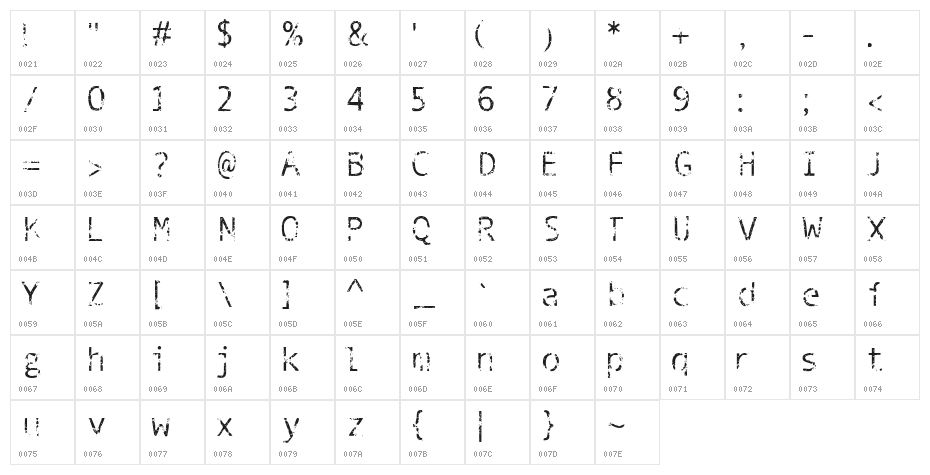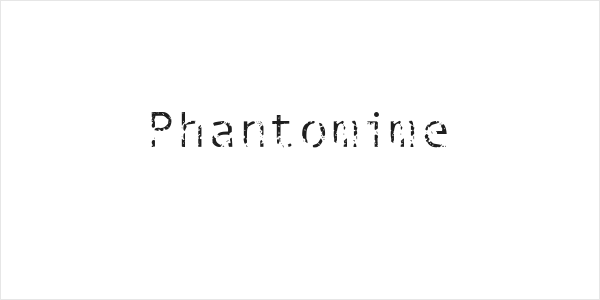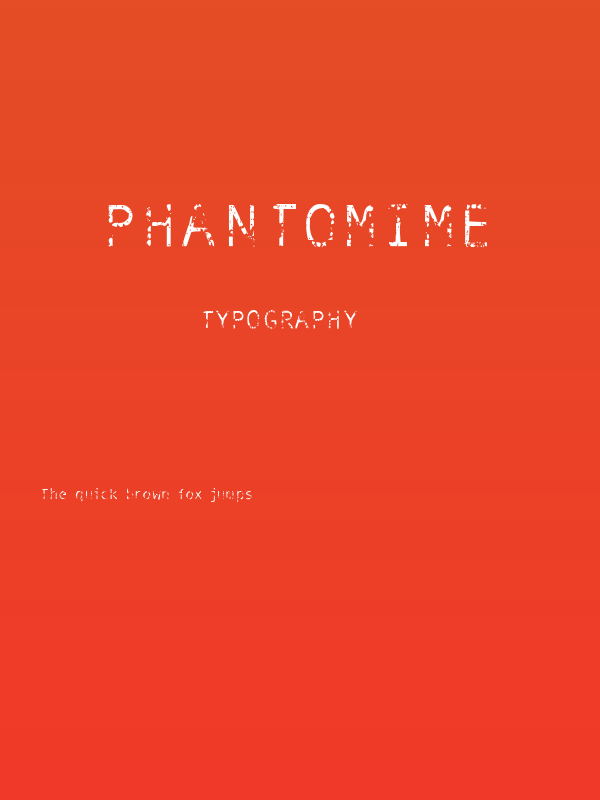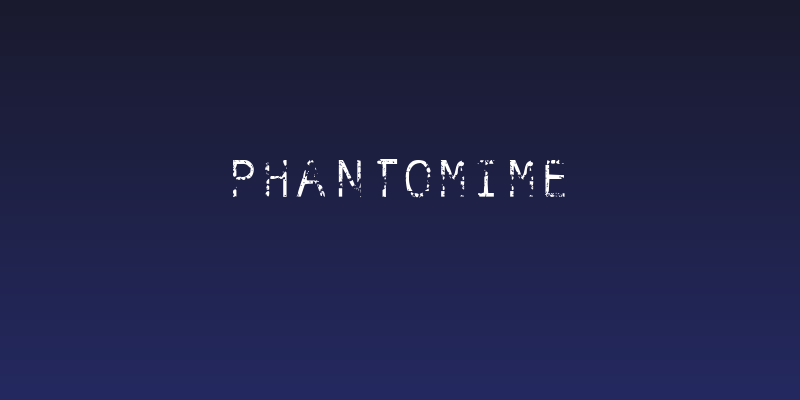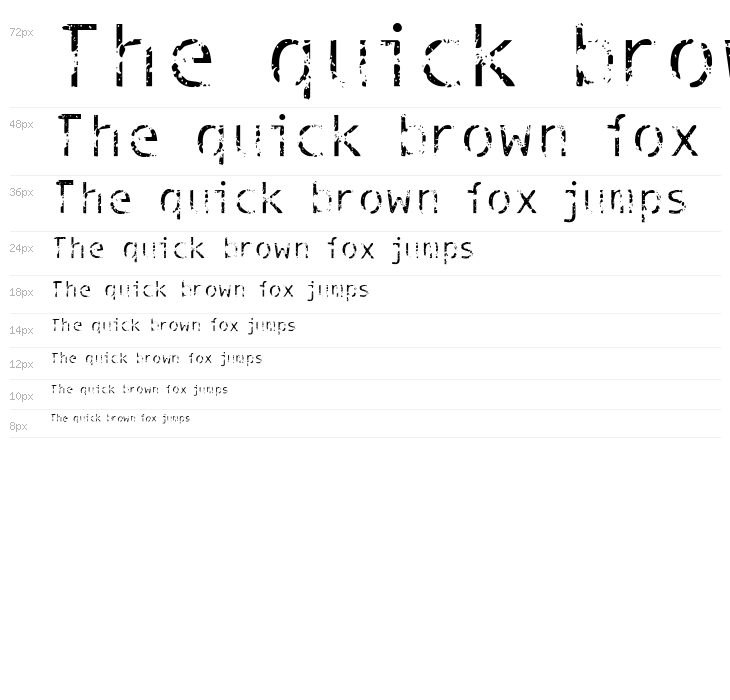
Phantomime Font
Phantomime Description
This font features a distressed, grunge aesthetic with a textured appearance that gives it a worn and weathered look. The characters are bold and uppercase letters are slightly taller than the lowercase, maintaining a consistent width throughout. The texture adds a unique character, making it ideal for projects that require a rugged or vintage feel. The numerals and special characters follow the same distressed style, ensuring uniformity across all glyphs. This font is perfect for creating eye-catching headlines, posters, or any design that aims to convey a sense of edginess or authenticity.
Overall StyleVintage
Proposed ProjectsIdeal for posters, album covers, vintage-themed designs, and branding that requires a rugged look.